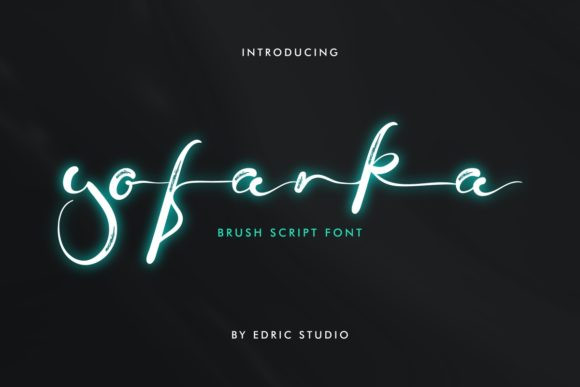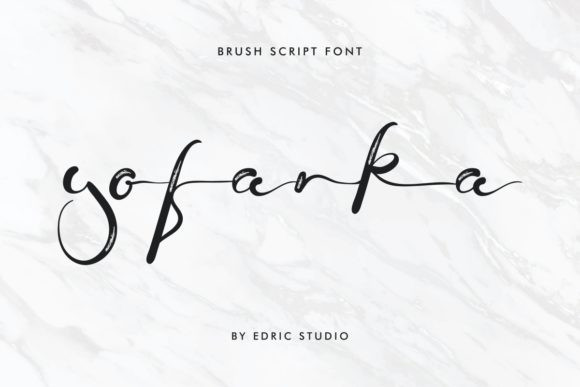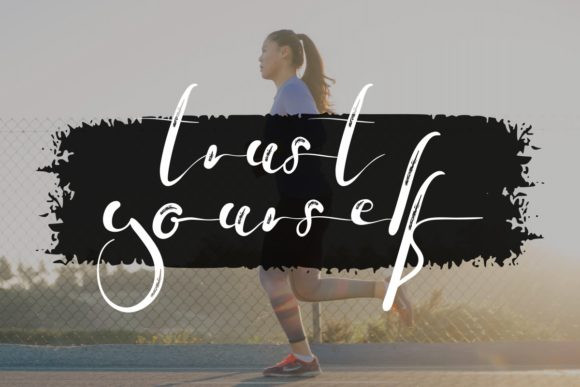
Yofanka Font
Yofanka is a fashionable handwritten font. Not too thin and not too thick, balanced and varied, this font was designed to enhance the beauty of your projects.